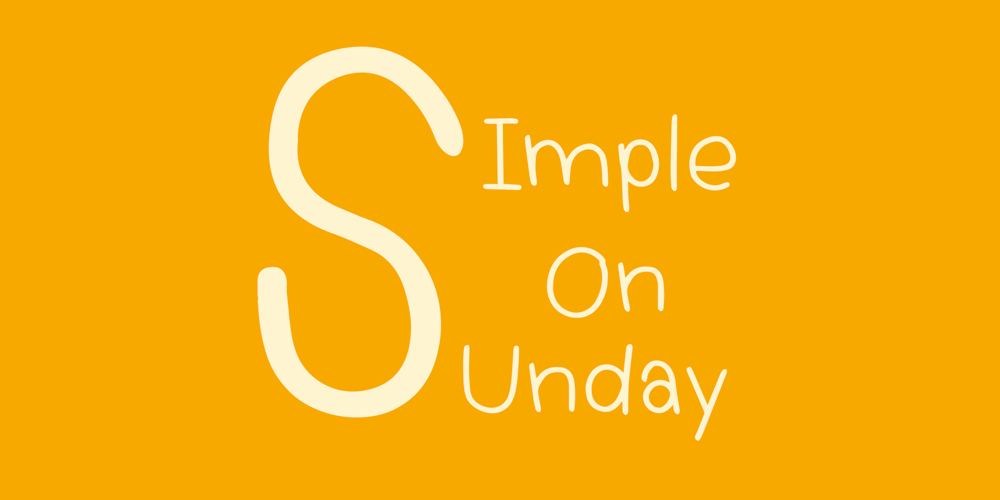
Simple On Sunday Font Family was designed by Rattanakorn Rengphian and published by Icedbear. Simple On Sunday contains 1 styles and family package options. warmly welcome to “Icedbear” I am so proud to represent the simple handwriting font name Simple On Sunday :)This font was inspired by ideas from my handwriting every day and is perfect to use this one for any of your ideas to have handwriting font in your work like logos, prints, note homework, decorating cards or artwork, branding, and much more ๐